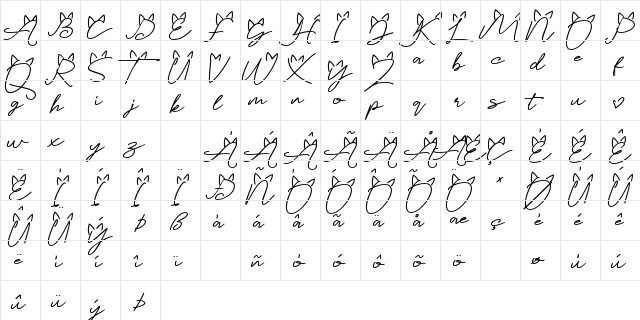
Catlove Regular
Design Context for Catlove Typeface
Catlove is a composed and adaptable typeface that performs quietly and consistently across a wide range of design contexts.